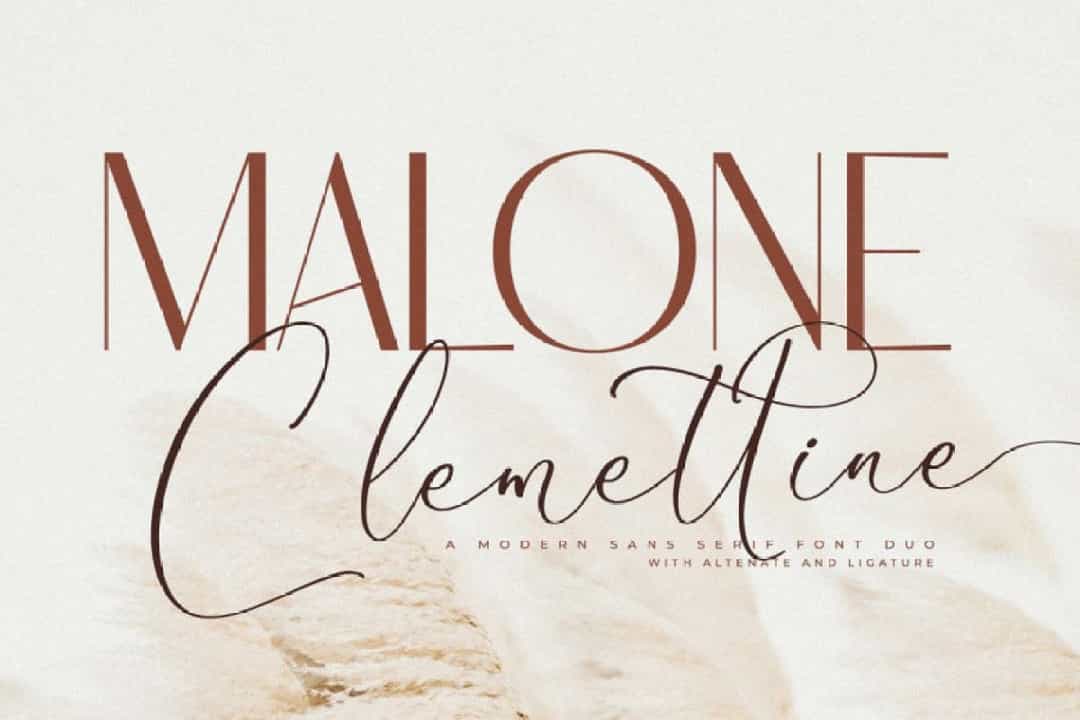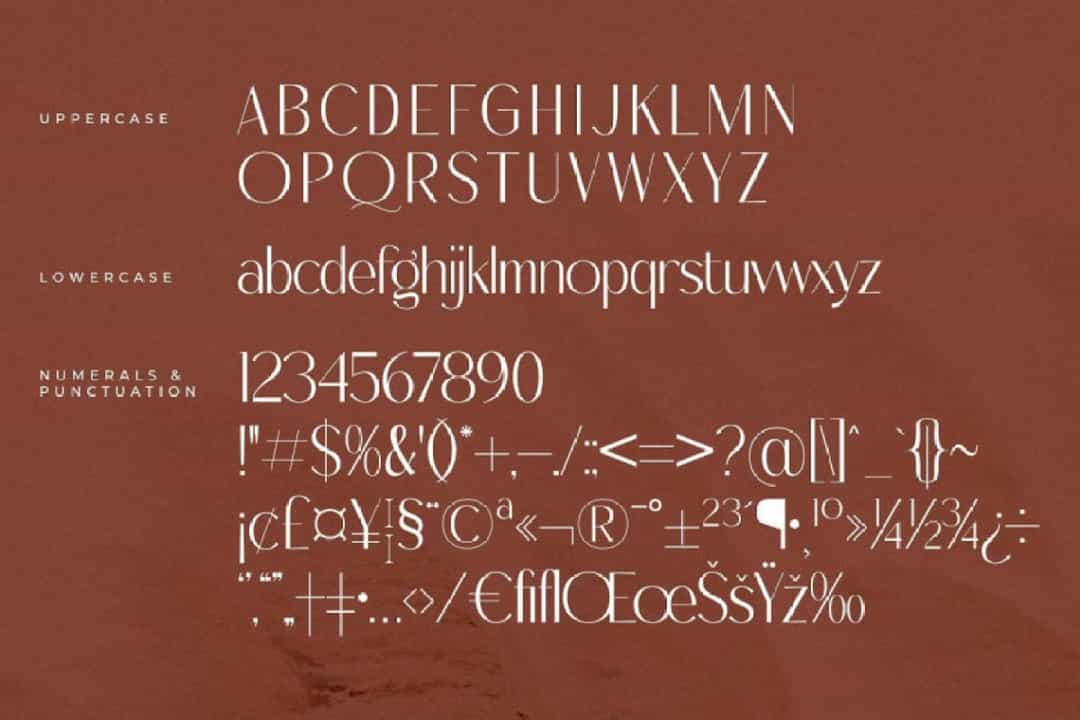
Malone Clemettine Font Duo by Storytype is an elegant Sans serif font and script with its distinctive style and modern look, ideal for creating elegant logos, movie and book titles as well as fashion magazines, clothing quotes and clothing brand letters. This typeface makes an impactful statement in any environment!